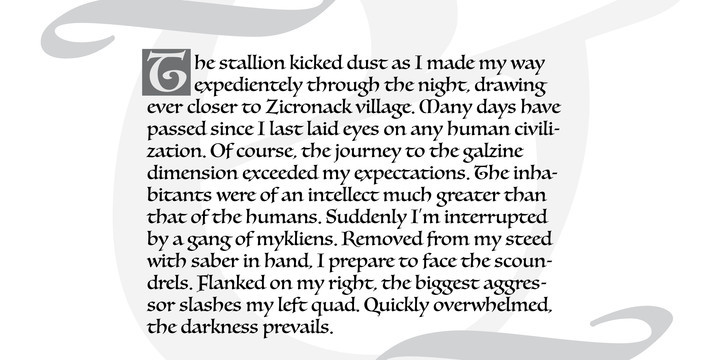
Luminari Font
Philip Bouwsma returns with yet another great manifestation of historical calligraphy. Luminari is an amalgam of High Middle Ages writing, a blend that combines the ornate Church hands with the simple Carolingian from the ninth to the fifteenth centuries.